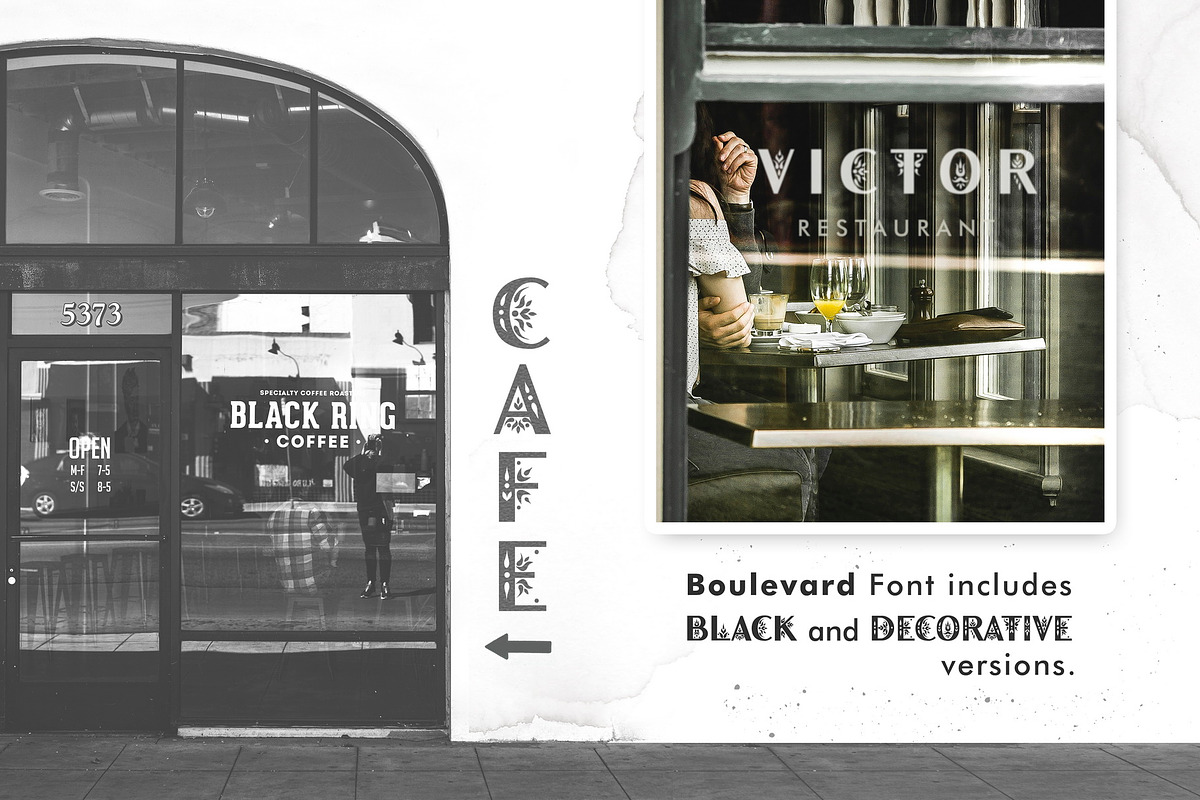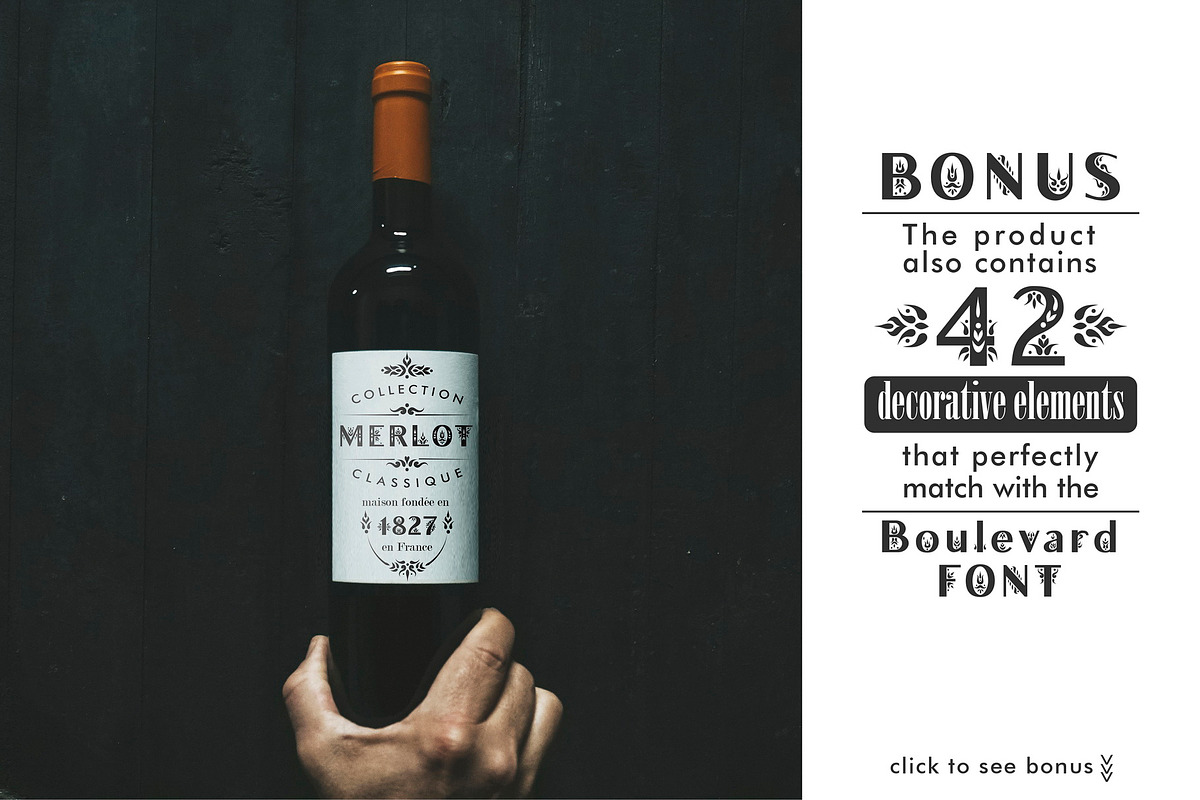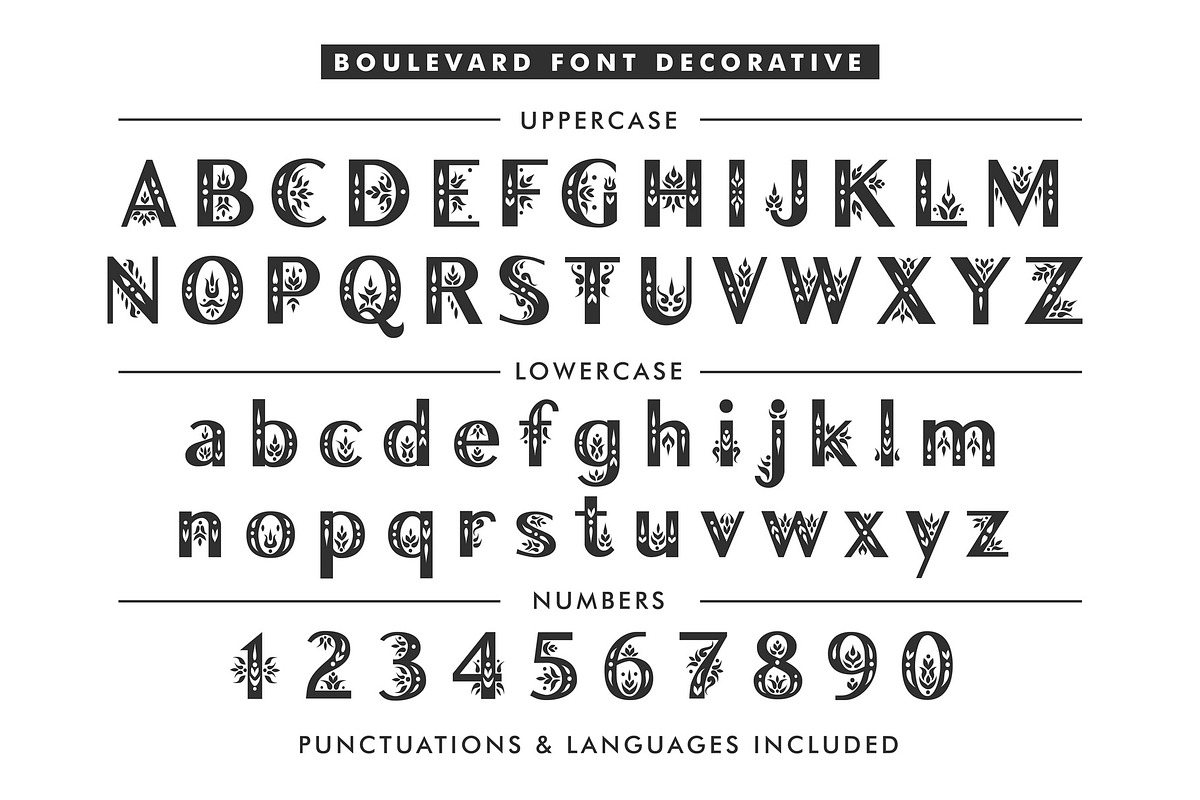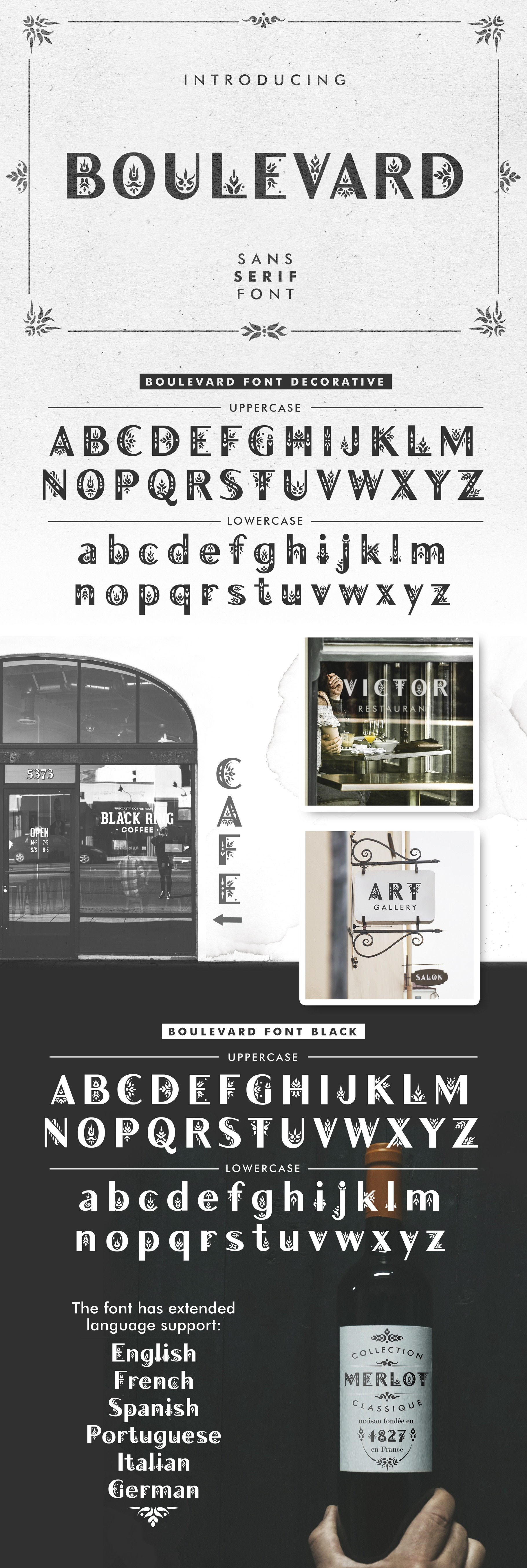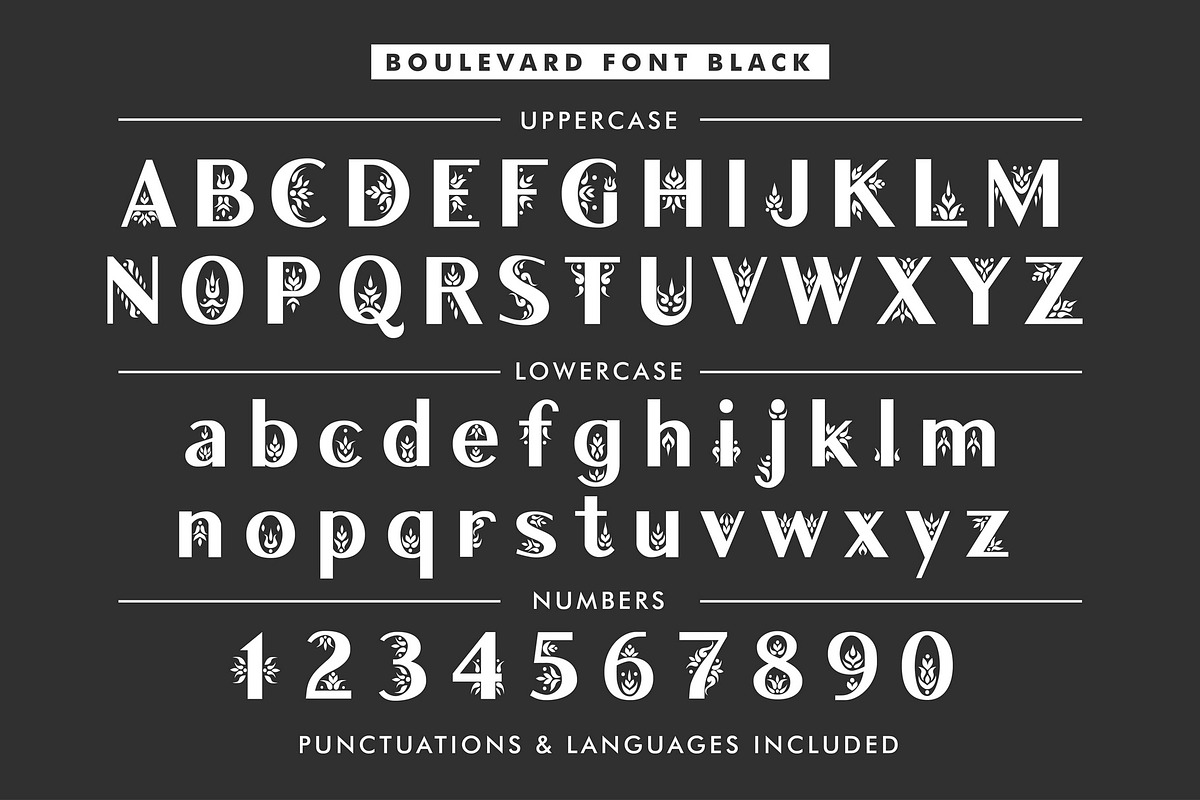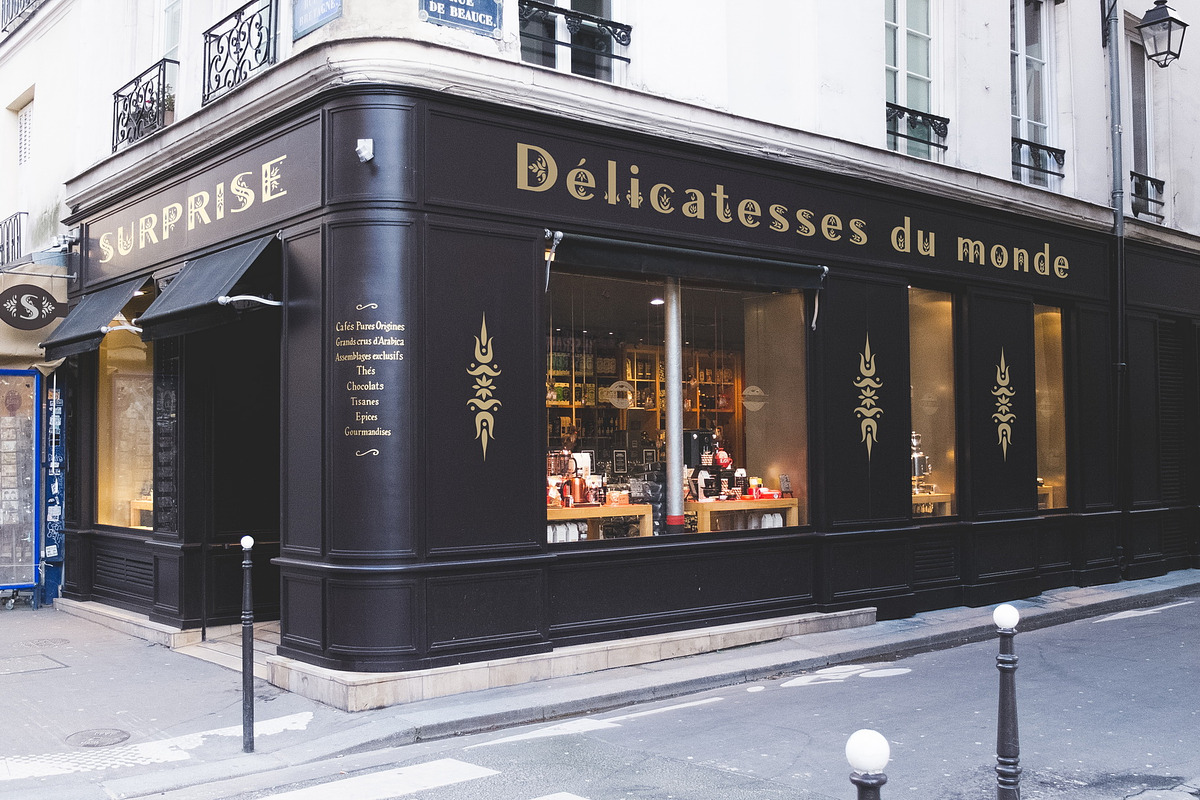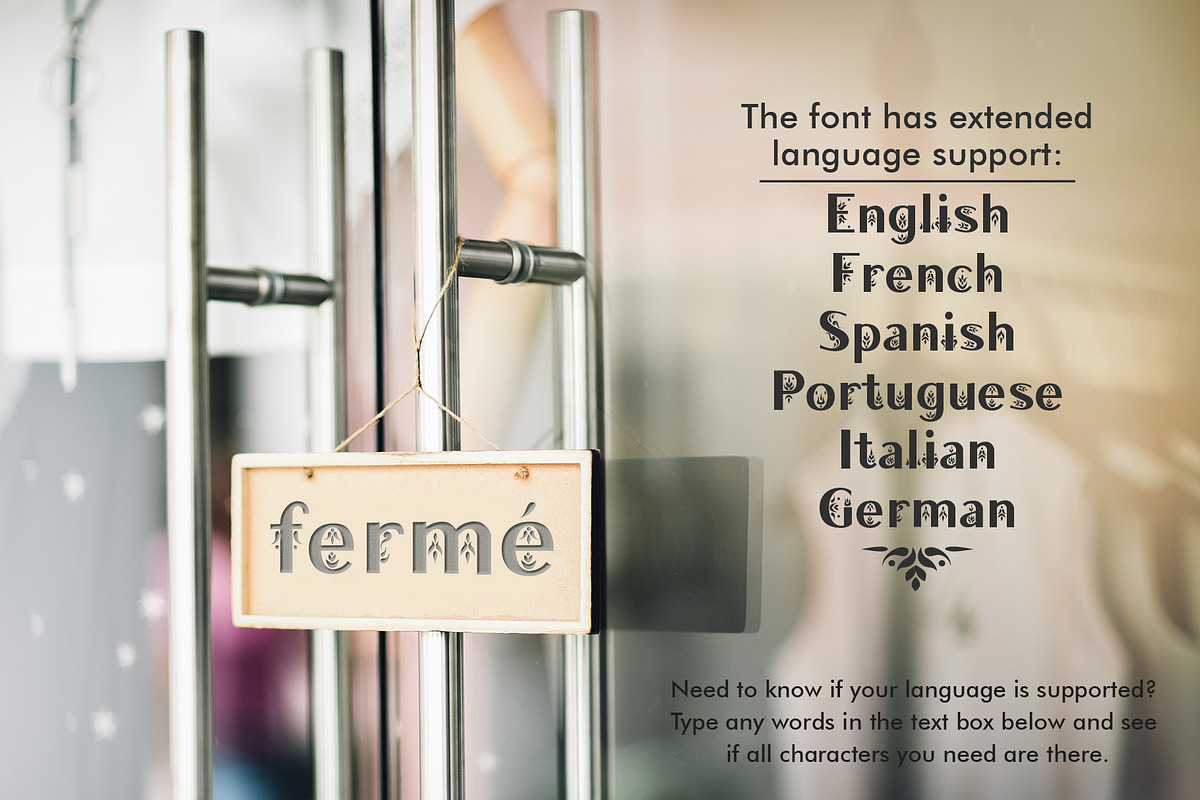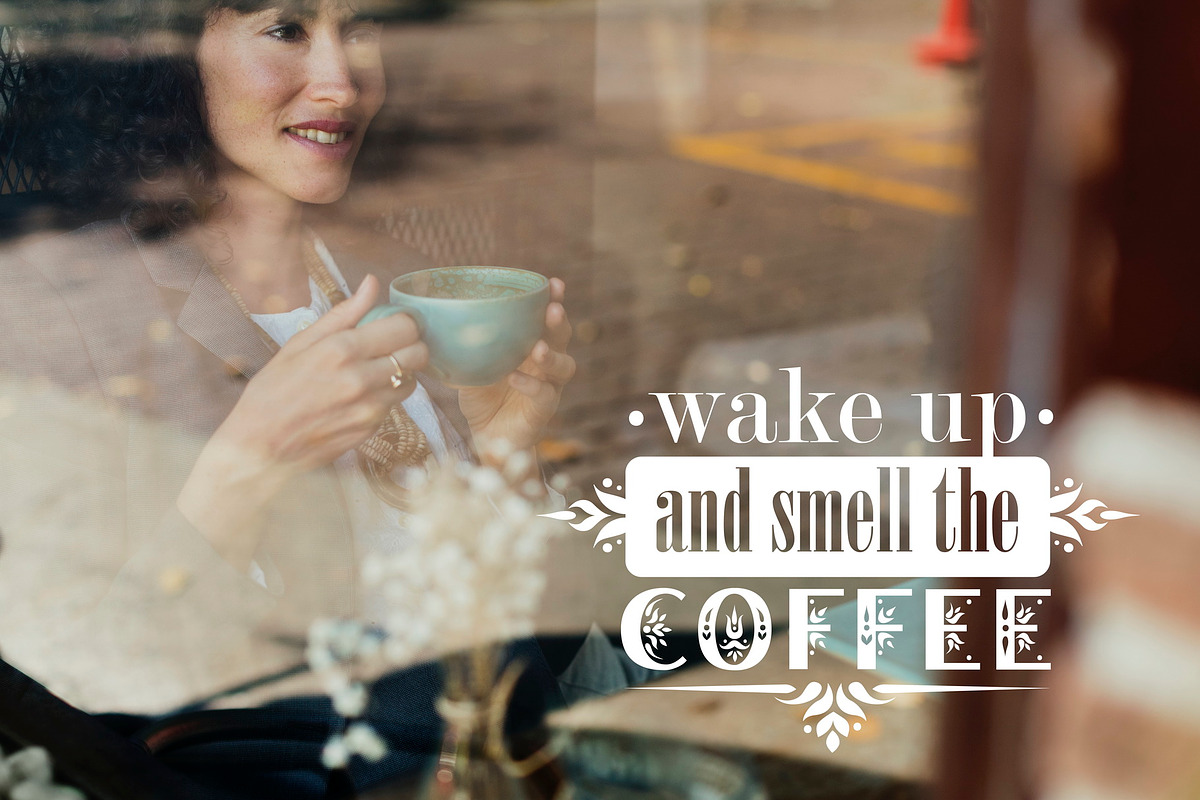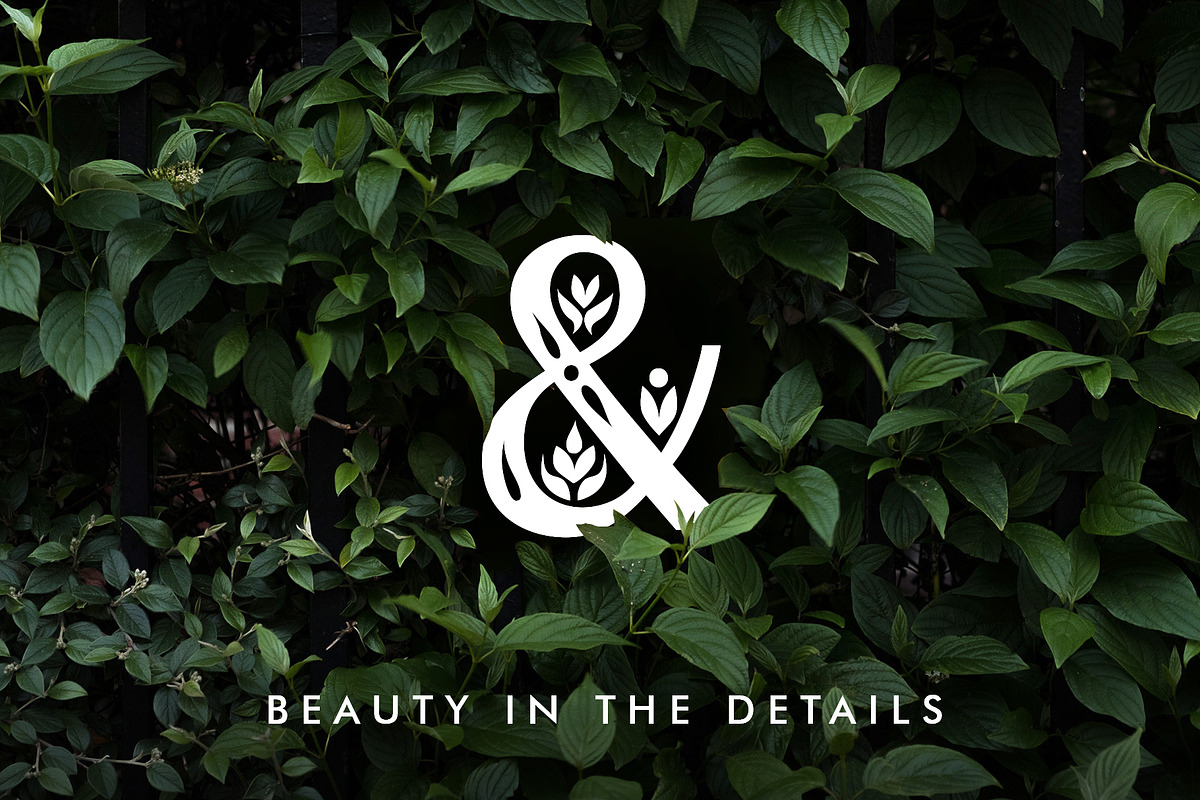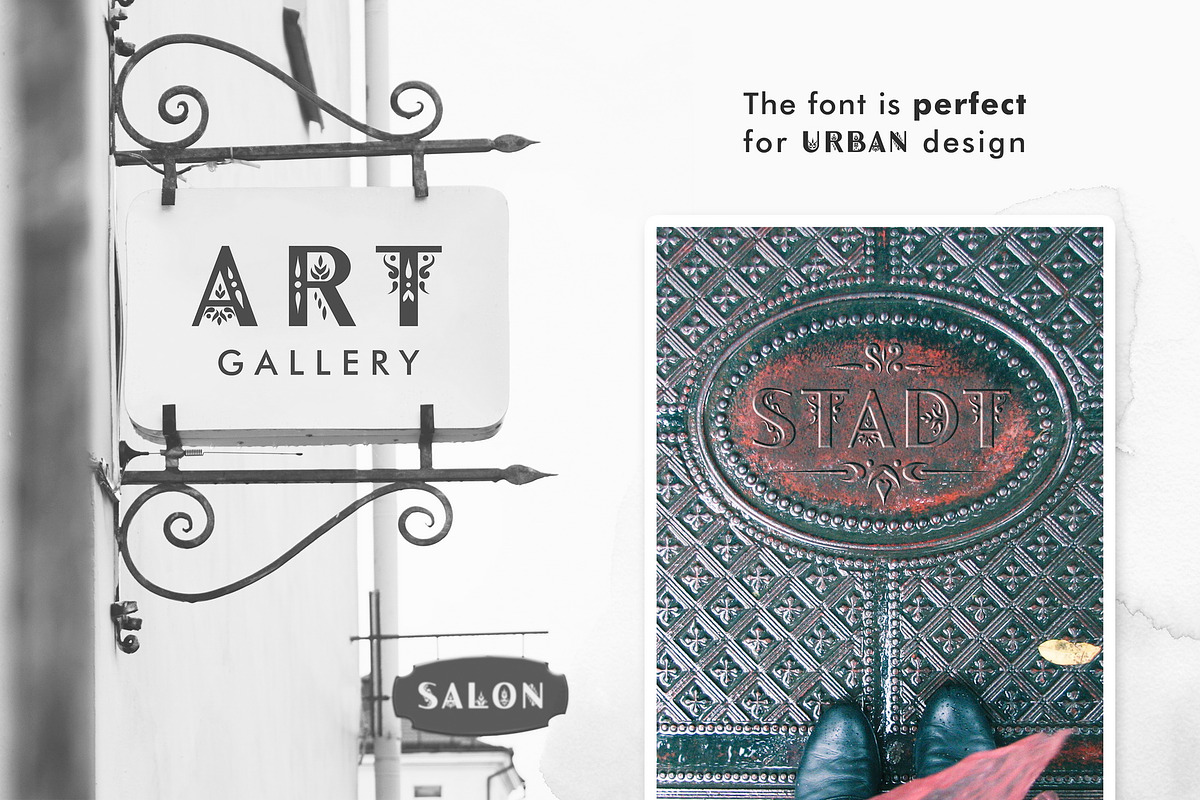
Boulevard - Sans Serif Font
I would like to introduce my new product Boulevard - Sans Serif Font.
Boulevard is sans serif font decorated with floral patterns. I was inspired by the aesthetics of old European streets and created this font. The typeface includes Decorative and Black versions. The product contains a set of decorative elements that perfect match with the font.
The font is easy to use in various design programs or without any program. Boulevard font is good combined with classic serif and sans serif fonts.
Boulevard font is suitable for urban design: street signs, billboards, signposts. Also this font is good for menu design, wedding cards and invitations, article titles, lettering posters and vintage labels (such as wine). Also you can use individual letters to create logos and monograms.
- Boulevard Decorative
- Boulevard Black
Boulevard font has extended language support, it includes English, French, German, Italian, Spanish, Portuguese. Need to know if your language is supported? Type any words in the text box below and see if all characters you need are there.